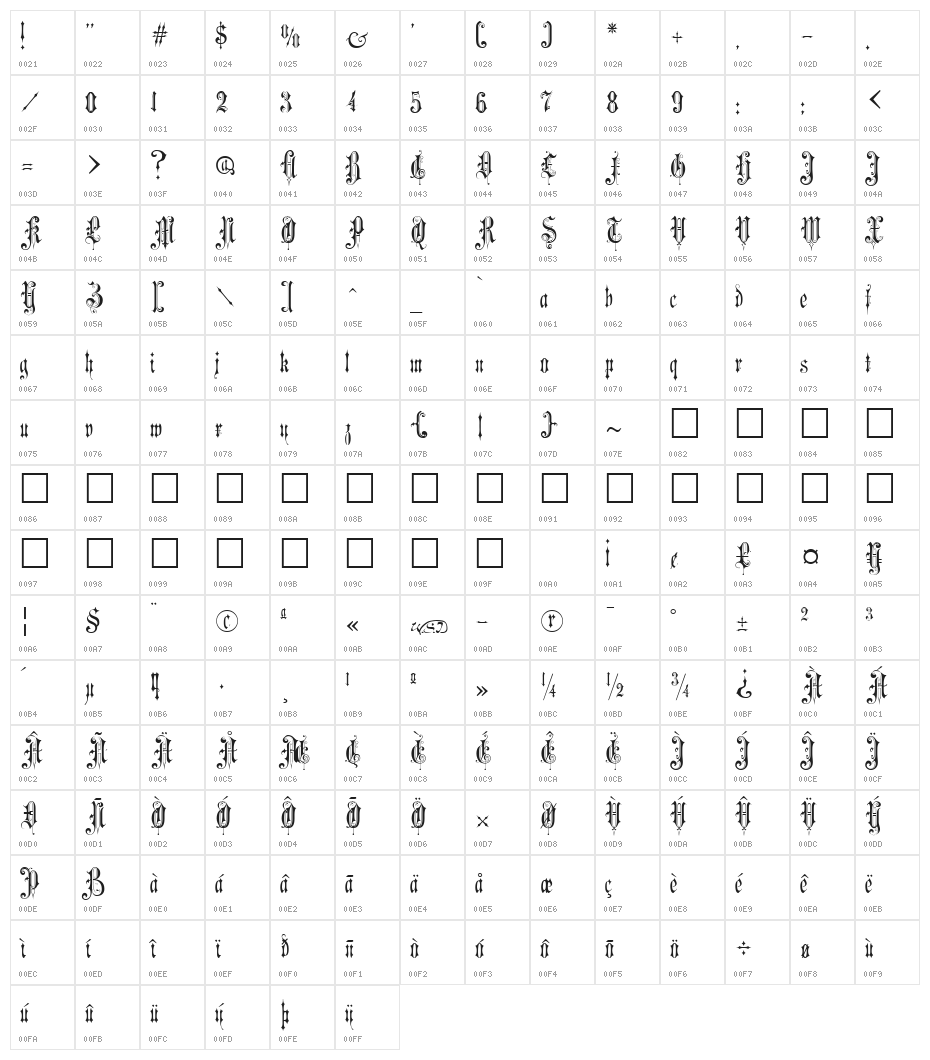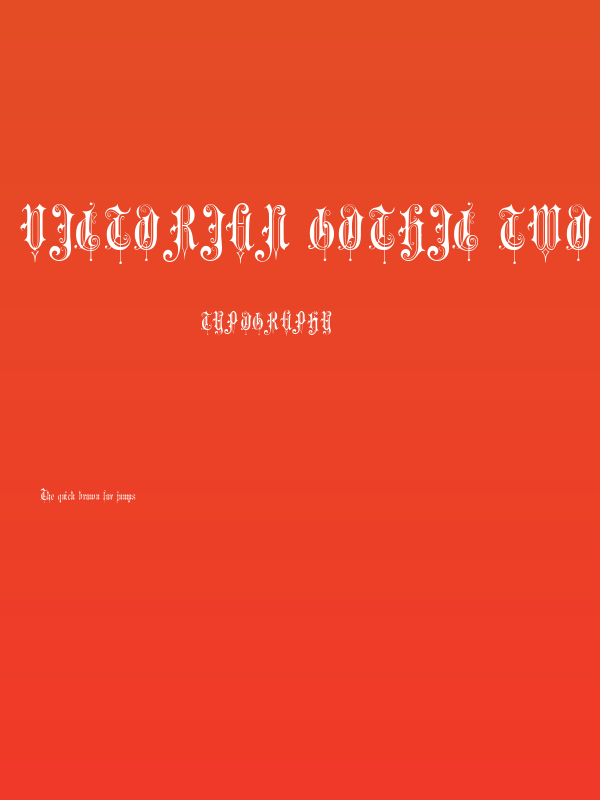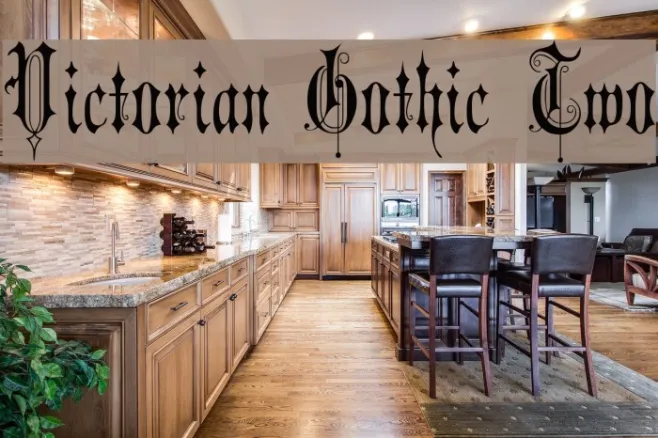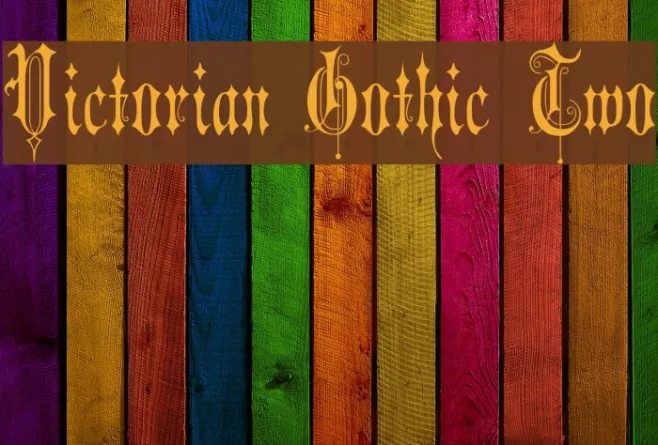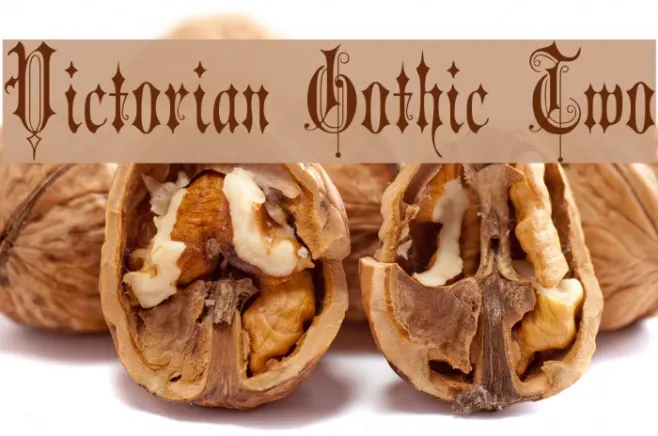
Victorian Gothic Two Font
Victorian Gothic Two Description
This font embodies a Victorian Gothic style, characterized by its ornate and intricate design. The uppercase letters feature elaborate swirls and flourishes, giving them a highly decorative appearance. The lowercase letters maintain a gothic essence with sharp, pointed edges and a slightly condensed form. Numbers and special characters are equally embellished, maintaining the overall aesthetic. The font's design is reminiscent of historical manuscripts and signage, making it suitable for projects that require a touch of elegance and antiquity.
| Proposed Projects | Ideal for vintage-themed designs, wedding invitations, historical event posters, and decorative book covers. |